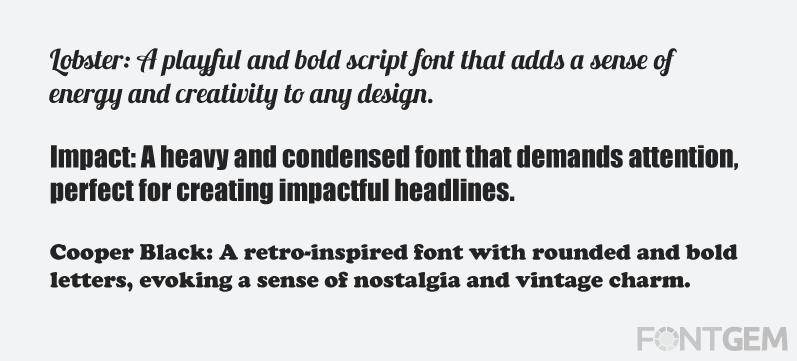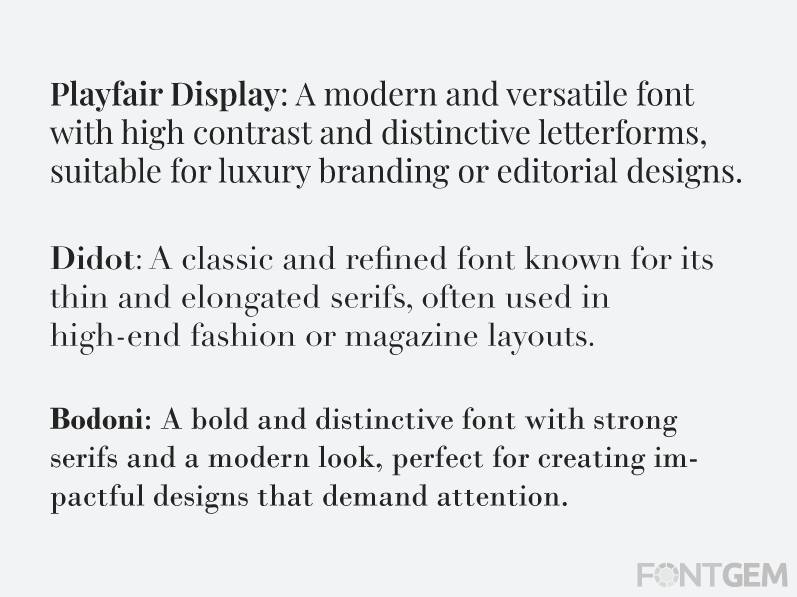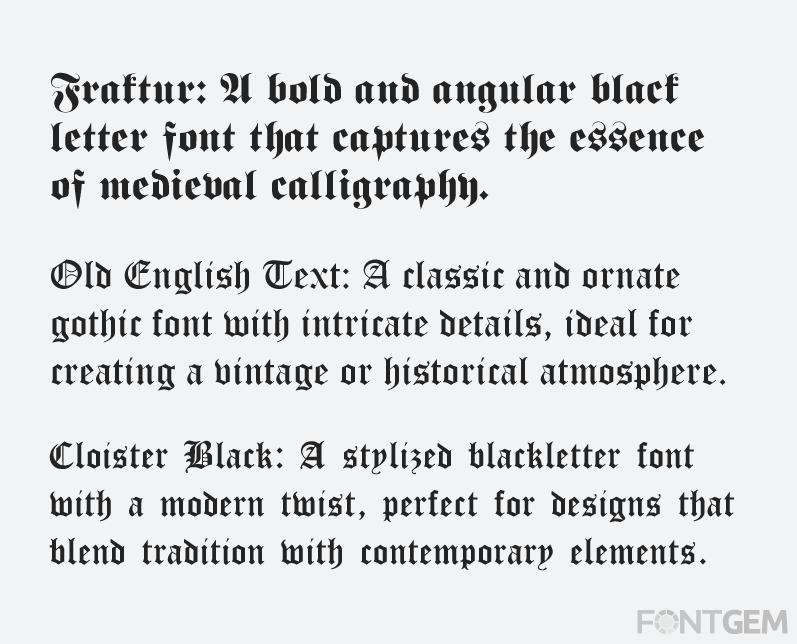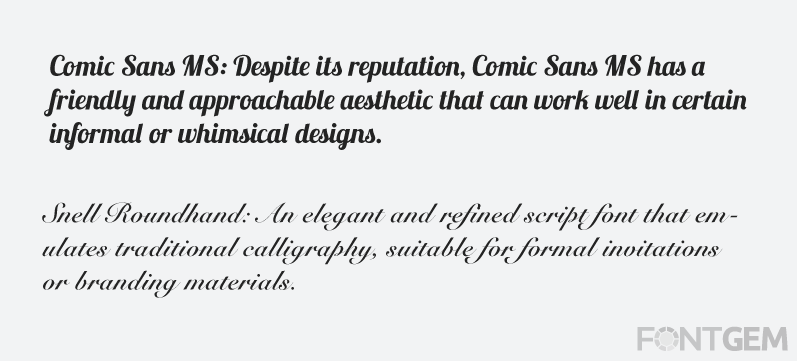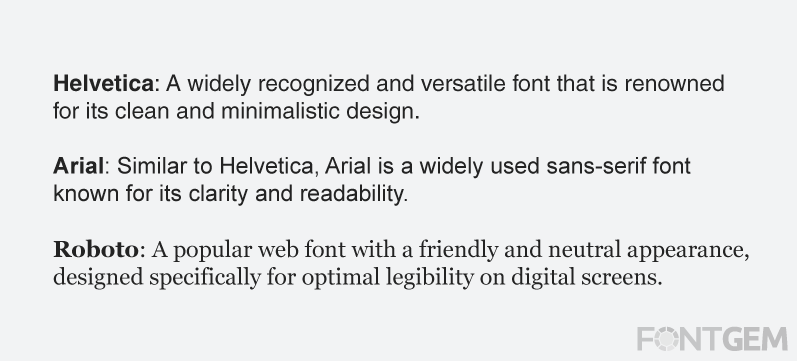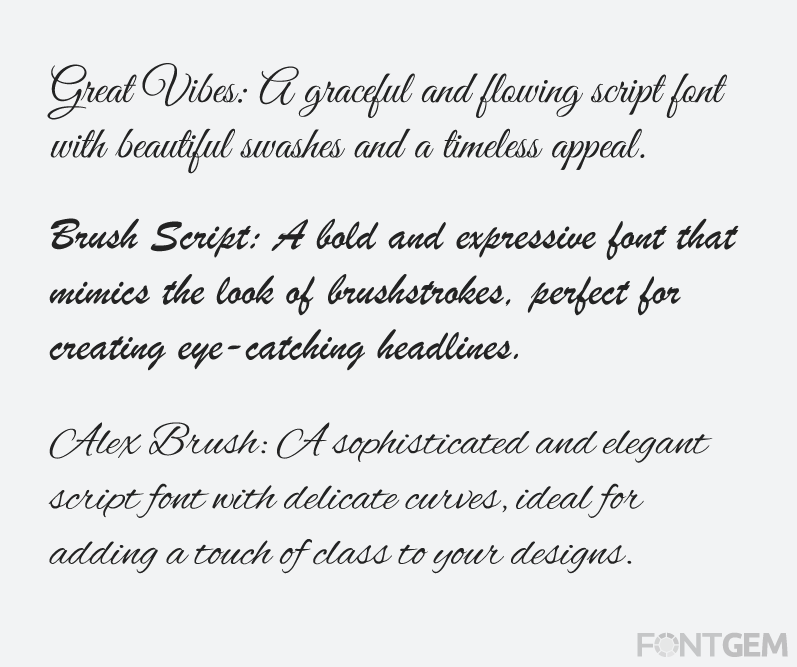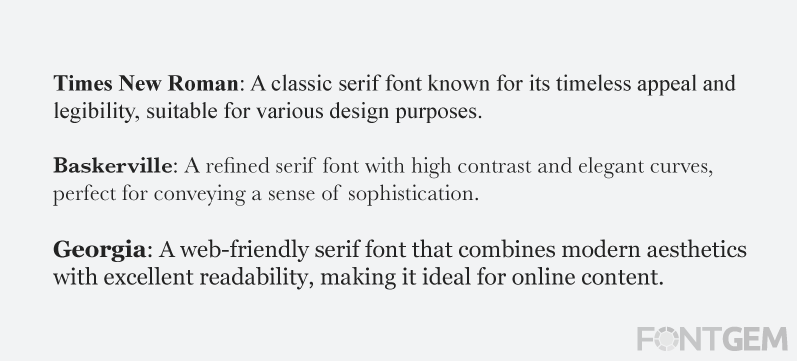
Ultimate Font Collection
The Ultimate Font Collection: Find Your Perfect Typeface
In the vast world of typography, finding the perfect typeface can be a daunting task. The right font can bring your designs to life, convey your message effectively, and leave a lasting impression on your audience.
Here we present the ultimate font collection, curated to help you discover the ideal typeface for your design projects. Whether you're aiming for elegance, modernity, playfulness, or professionalism, we've got you covered.
Serif Fonts
Serif fonts exude a sense of tradition, sophistication, and elegance. These fonts feature small decorative strokes at the ends of letters, known as serifs. They are widely used in print media, formal documents, and luxury branding. Some popular serif fonts to consider include:
Times New Roman: A classic serif font known for its timeless appeal and legibility, suitable for various design purposes.
Baskerville: A refined serif font with high contrast and elegant curves, perfect for conveying a sense of sophistication.
Georgia: A web-friendly serif font that combines modern aesthetics with excellent readability, making it ideal for online content.
Sans-Serif Fonts
Sans-serif fonts are clean, modern, and versatile. They lack the decorative strokes found in serif fonts, giving them a more contemporary and streamlined appearance. Sans-serif fonts are widely used in digital media, branding, and designs targeting younger audiences. Some popular sans-serif fonts include:
Helvetica: A widely recognized and versatile font that is renowned for its clean and minimalistic design.
Arial: Similar to Helvetica, Arial is a widely used sans-serif font known for its clarity and readability.
Roboto: A popular web font with a friendly and neutral appearance, designed specifically for optimal legibility on digital screens.
Display Fonts
Display fonts are attention-grabbing, unique, and often used for headlines or creative designs. They come in various styles and can evoke different moods and emotions. When used sparingly, display fonts can add a touch of personality and flair to your designs. Some notable display fonts include:
Lobster: A playful and bold script font that adds a sense of energy and creativity to any design.
Impact: A heavy and condensed font that demands attention, perfect for creating impactful headlines.
Cooper Black: A retro-inspired font with rounded and bold letters, evoking a sense of nostalgia and vintage charm.
Handwriting Fonts
Handwriting fonts add a personal and human touch to designs, mimicking the appearance of handwritten text. They are often used for invitations, personal branding, or designs that require a more informal and organic feel. Here are a few noteworthy handwriting fonts:
Comic Sans MS: Despite its reputation, Comic Sans MS has a friendly and approachable aesthetic that can work well in certain informal or whimsical designs.
Snell Roundhand: An elegant and refined script font that emulates traditional calligraphy, suitable for formal invitations or branding materials.
Script Fonts
Script fonts emulate the look of cursive or handwritten text, adding a touch of elegance, romance, or informality to your designs. They are often used for
Great Vibes: A graceful and flowing script font with beautiful swashes and a timeless appeal.
Brush Script: A bold and expressive font that mimics the look of brushstrokes, perfect for creating eye-catching headlines.
Alex Brush: A sophisticated and elegant script font with delicate curves, ideal for adding a touch of class to your designs.
Display Serif Fonts
Display serif fonts combine the elegance of serif fonts with unique and eye-catching characteristics. They are designed to make a statement and stand out in headlines or large-scale designs. Here are some noteworthy display serif fonts:
Playfair Display: A modern and versatile font with high contrast and distinctive letterforms, suitable for luxury branding or editorial designs.
Didot: A classic and refined font known for its thin and elongated serifs, often used in high-end fashion or magazine layouts.
Bodoni: A bold and distinctive font with strong serifs and a modern look, perfect for creating impactful designs that demand attention.
Gothic Fonts
Gothic or blackletter fonts are associated with a medieval aesthetic and evoke a sense of history and tradition. They are commonly used for logos, music albums, or designs that require a gothic or vintage-inspired look. Consider these gothic fonts for a unique and captivating design:
Fraktur: A bold and angular black letter font that captures the essence of medieval calligraphy.
Old English Text: A classic and ornate gothic font with intricate details, ideal for creating a vintage or historical atmosphere.
Cloister Black: A stylized blackletter font with a modern twist, perfect for designs that blend tradition with contemporary elements.
perfect typeface gothic fonts
With the diverse range of fonts available, finding the perfect typeface for your design projects has never been easier. Remember to consider the tone, purpose, and target audience of your designs when selecting fonts.
Experiment, mix and match, and trust your instincts to find the typeface that resonates with your vision. Whether you seek elegance, modernity, playfulness, or professionalism, the right font can elevate your designs and make a lasting impact on your audience.
Explore the vast world of typography and let your creativity soar with the perfect typeface.